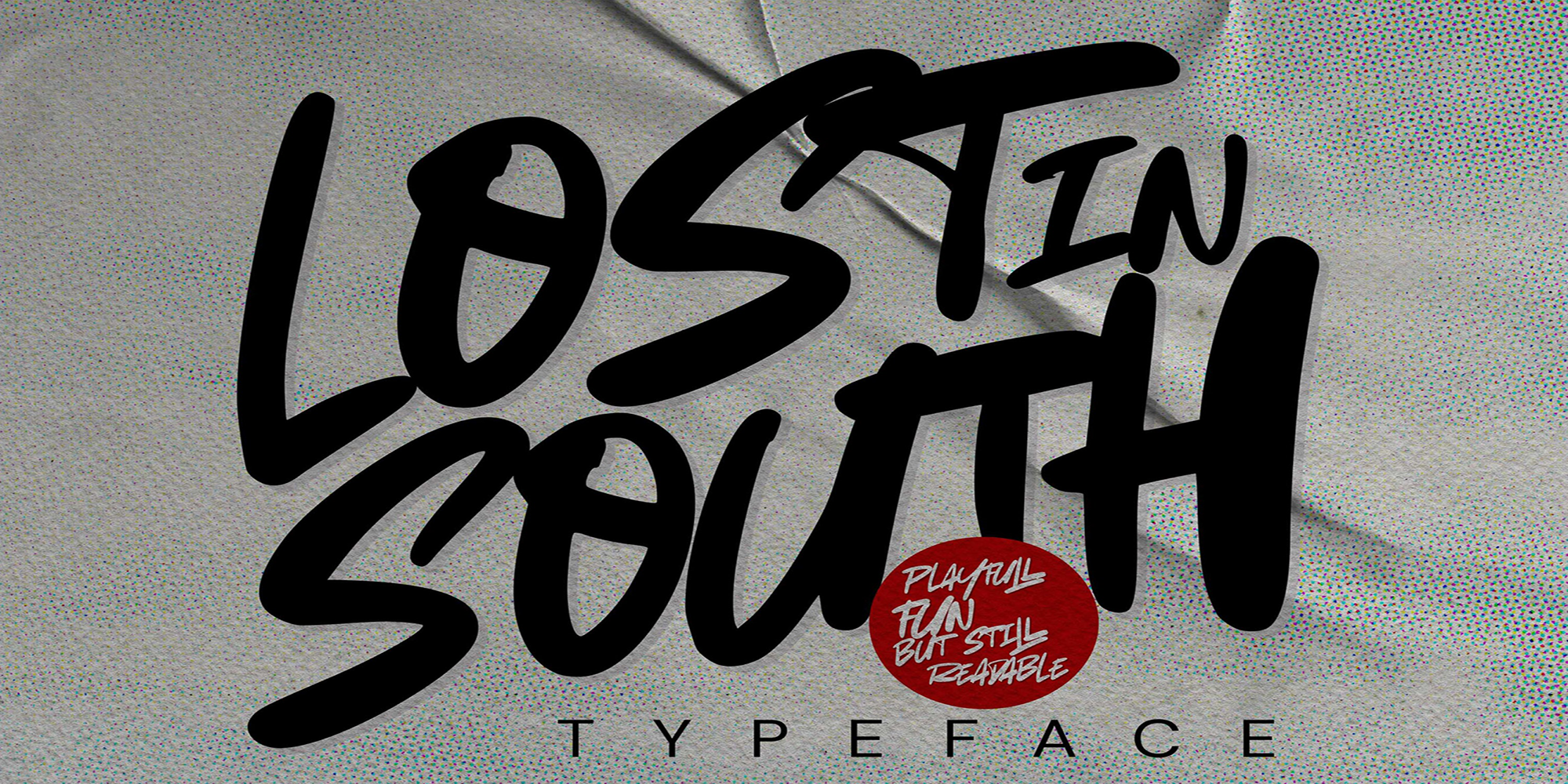
The Lost In South Font is a captivating and adventurous typeface, often characterized by its rugged charm, slightly distressed textures, and a strong sense of exploration and the outdoors. Imagine its bold forms making a statement on travel blog headers, adding an authentic, rustic feel to outdoor adventure gear branding, or creating impactful titles for documentary films about nature and exploration. Its robust yet often handcrafted aesthetic also makes it an excellent choice for craft beer labels, vintage-inspired posters, camping enthusiast merchandise, and social media graphics promoting an adventurous lifestyle. Whether you're aiming for a raw, untamed look or a warm, nostalgic vibe, Lost In South Font delivers with its unmistakable character, ensuring your visuals tell a compelling story of discovery and freedom.
What makes Lost In South Font so exciting is its immediate ability to evoke a sense of journey and authenticity. In a world often dominated by sleek, mass-produced designs, this font offers a refreshing dive into a more grounded, tactile aesthetic. It conjures images of open roads, vast landscapes, and a spirit of adventure. It’s more than just a typeface; it’s a design element that can instantly set an adventurous and earthy tone for a project, making content feel more relatable and less formal. Designers will find it an invaluable asset for creating visuals that truly resonate with an audience seeking connection with nature and a sense of discovery.
The Lost In South Font family is typically structured to offer a range of styles that enhance its adventurous and rustic appeal. Beyond the primary Lost In South Regular typeface, you might find companion styles such as a more impactful Lost In South Bold for stronger emphasis, or perhaps slightly distressed Lost In South Textured versions to amplify its rugged charm. Given its often handcrafted or vintage-inspired nature, the family may also include unique ligatures, alternate characters, or stylistic sets that allow for even greater customization, mimicking the natural variations found in hand-painted signs or weathered prints. These diverse family members provide designers with the flexibility to establish a clear typographic hierarchy and maintain a consistent, evocative aesthetic across all elements of their project, from prominent titles to smaller, illustrative texts.